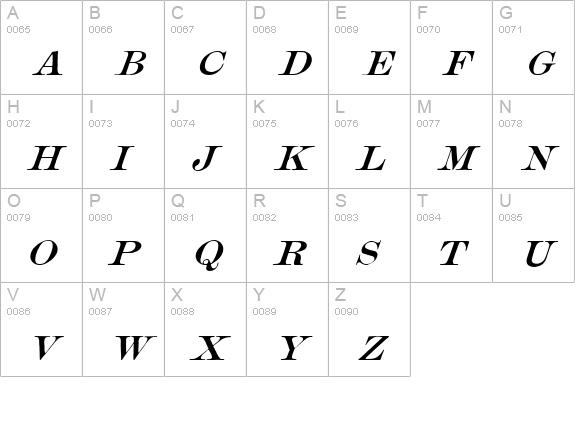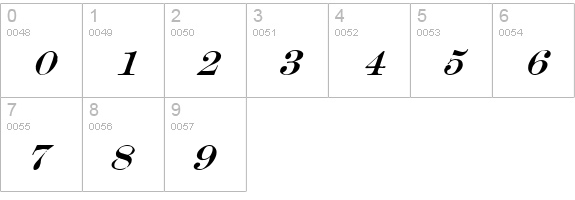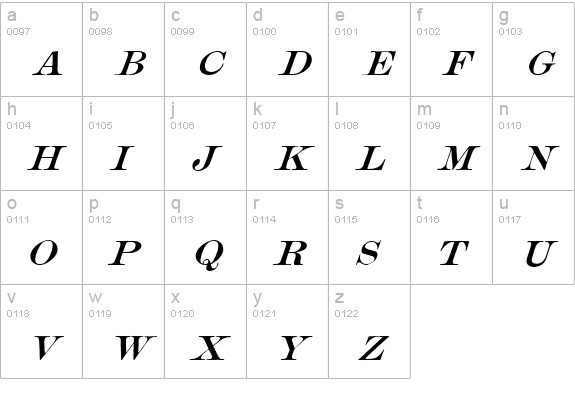
Mercantile Oblique HPLHS Font Details
Mercantile Oblique HPLHS is a distinctive, italic variant in the Mercantile typeface family \xE2\x80\x94 well suited to design and typography projects.
Mercantile Oblique HPLHS font is a unique and elegant typeface that exudes sophistication and class. Its stylish slanted design adds a touch of modernity to any project, making it perfect for logos, headlines, and other design elements. The distinctive letterforms of Mercantile Oblique HPLHS font make it stand out from the crowd, capturing attention and leaving a lasting impression. The best part? Mercantile Oblique HPLHS font is available for free download at FontsMarket.com. This means you can add this premium font to your collection without breaking the bank. Don't miss out on the opportunity to elevate your designs with the timeless appeal of Mercantile Oblique HPLHS font. Download it today and let your creativity shine!